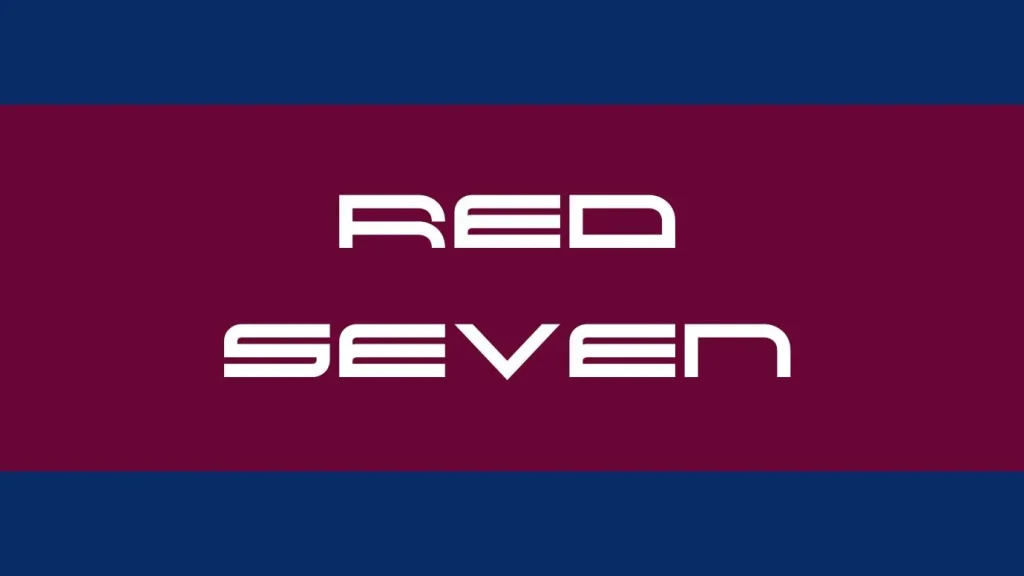
This display design has amazing design characteristics. With this font, you can create fun designs that everyone will love. This font has a regular family. Red Seven was nicely created by the designer. It consists of medium strokes with straight corners that create a unique texture. For a large text, this is a perfect choice just because of its styling.
Description of Red Seven Font By Sharkshock
Style has a combination of sharp and straight corners in caps that makes the font unique for users. There's no question that it's an eye-catching font, and it's highly readable style. Your design can stand out through this style in a variety of ways.
Reasons to Use Red Seven Font
This is a mind-blowing typeface for branding, quotes, wedding invites, watermarks on photographs, logos signatures, commercials, business cards, album covers, business cards, magazines, clothing, posters, etc.
Using the typeface, in your business, creating wedding invitations and cards, or labeling might be a good idea. You can use this for any grand projects that require some unique feel.
All types of design work can be done with this typeface. Whether you're sending greetings or wedding invitations, this gorgeous typeface will enhance your message. A magazine, poster, fashion design, or high-quality packaging can also be made with this design.
Of course For your logo as well as for all other graphic design projects, you can use Red Seven typeface.